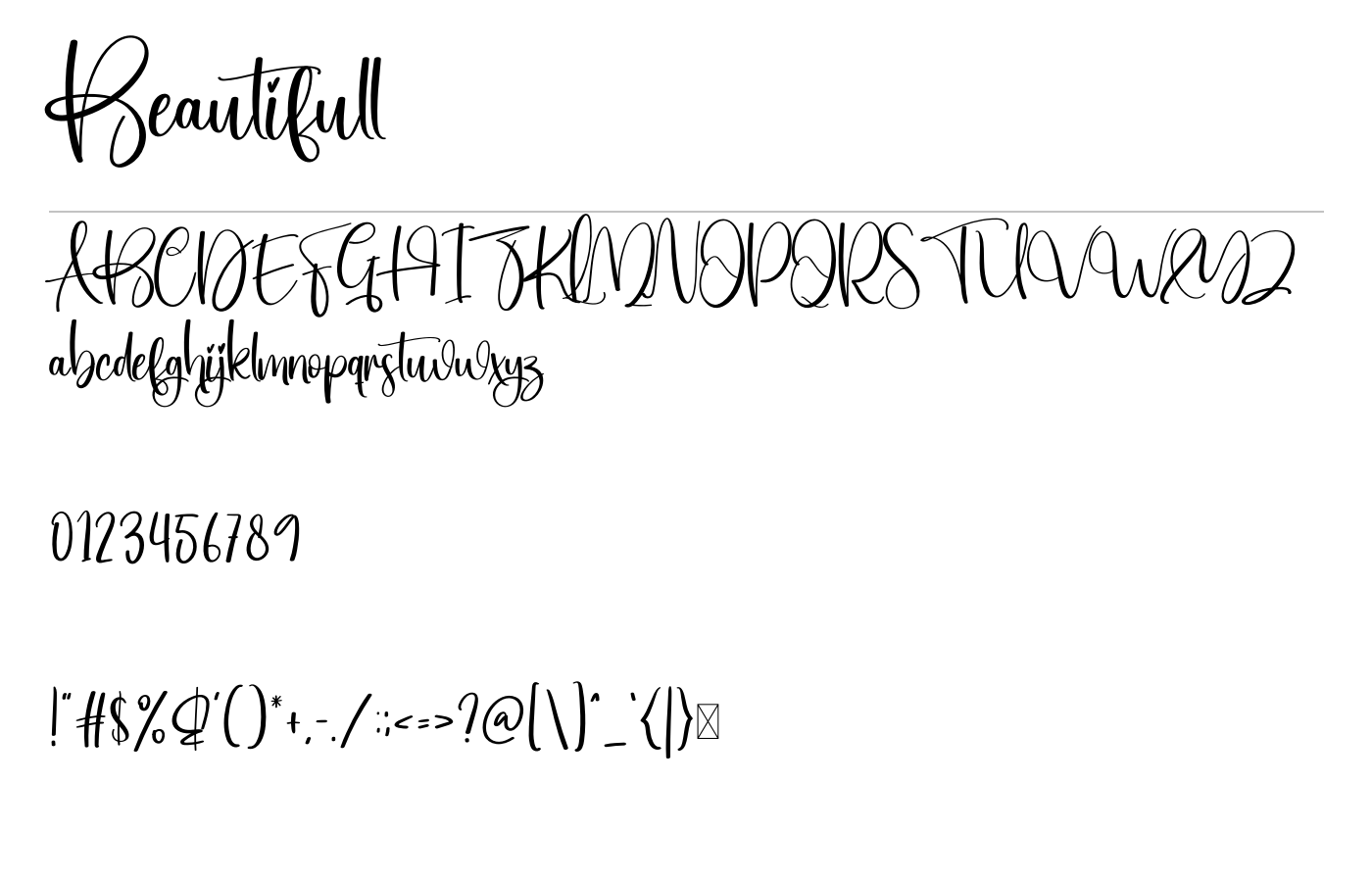
Beautifull Font is a delicate and expressive script typeface with a handwritten feel, featuring tall, slender letterforms and elegant flourishes that give it a whimsical yet refined personality. Its light stroke weight and airy spacing make it ideal for creative, feminine, or romantic branding, invitations, and headlines where a personal, artistic touch is desired. This font works beautifully for projects that need a graceful, stylish look without sacrificing readability.
Beautifull Font
About Beautifull Font